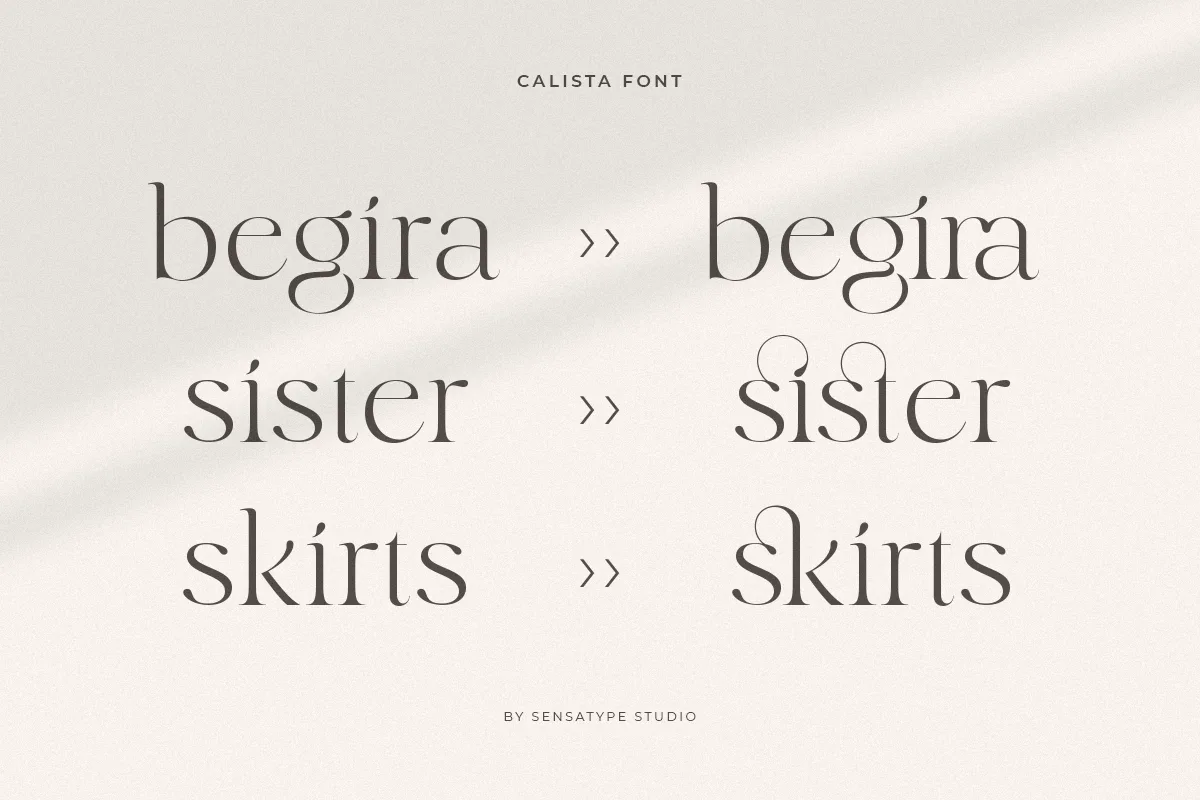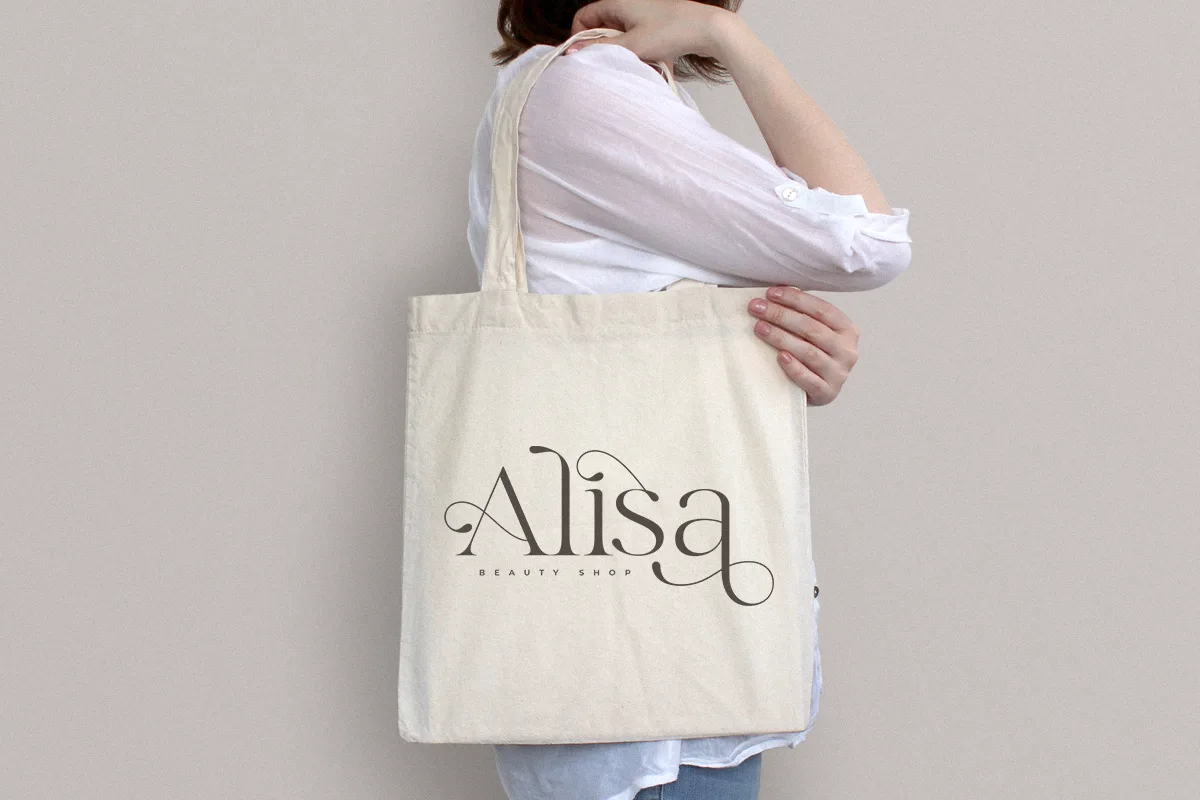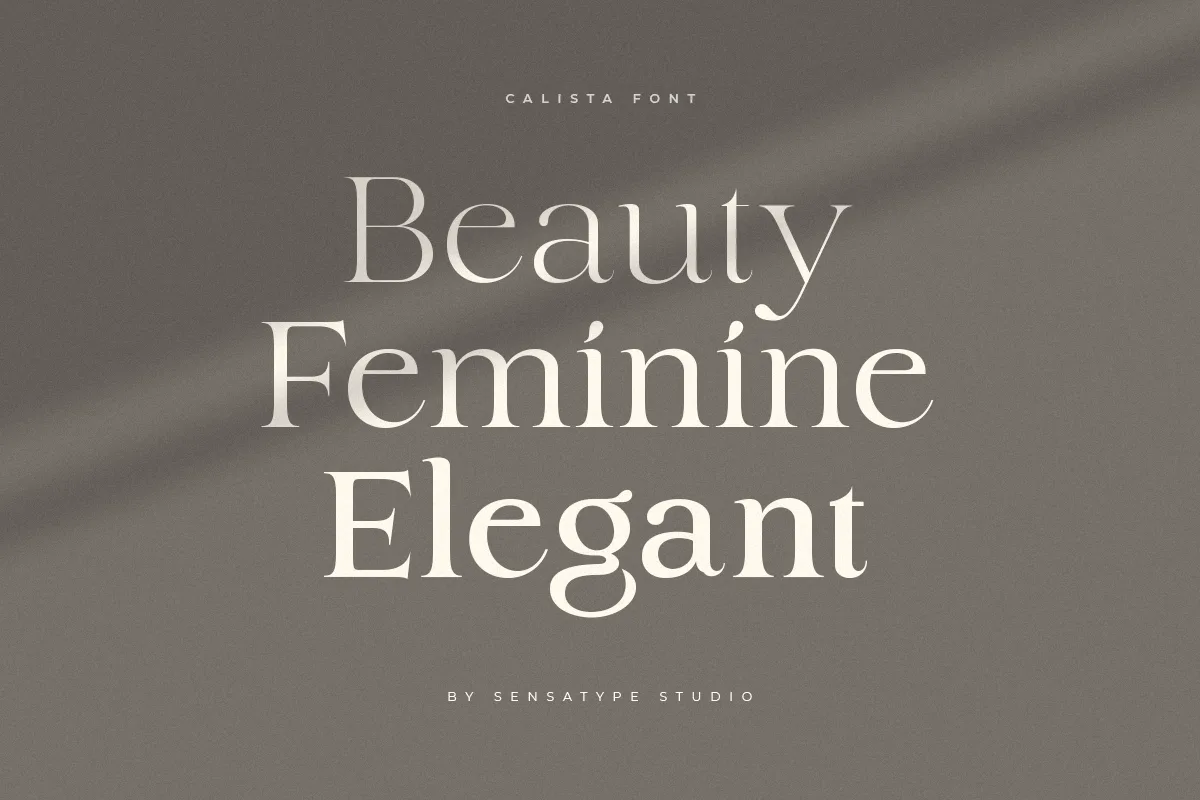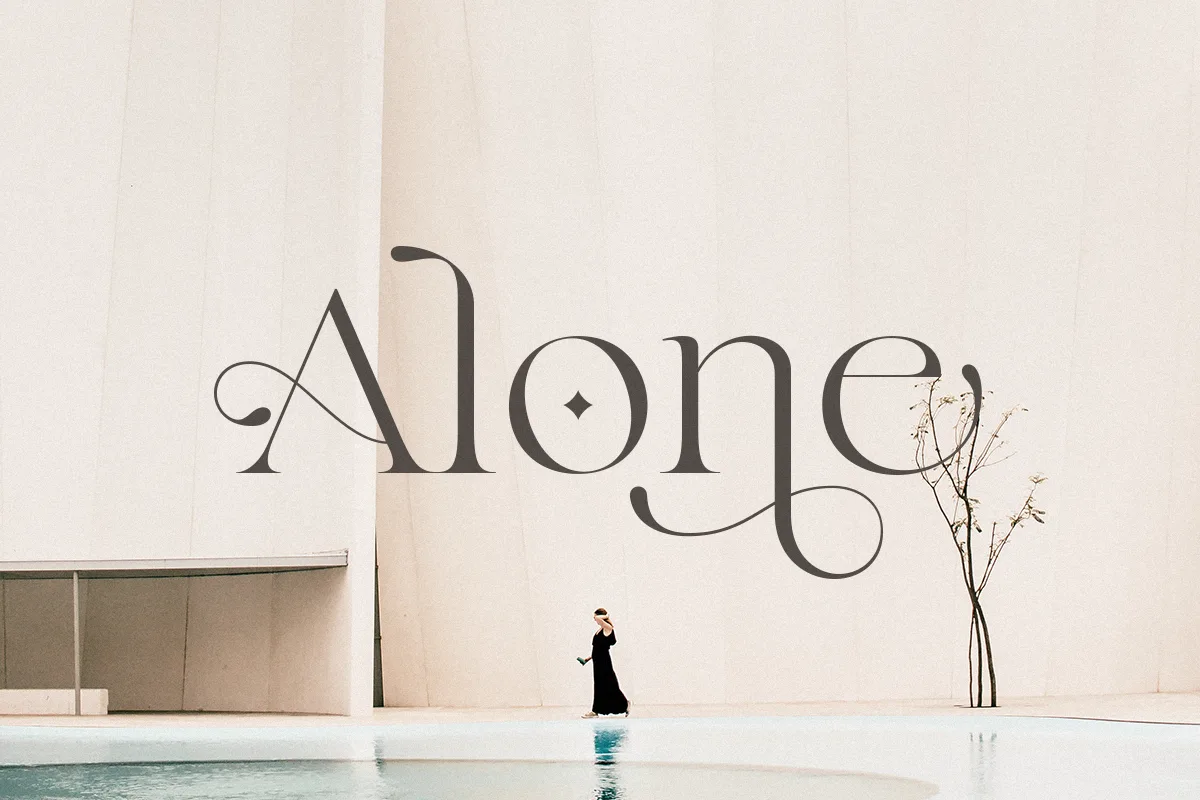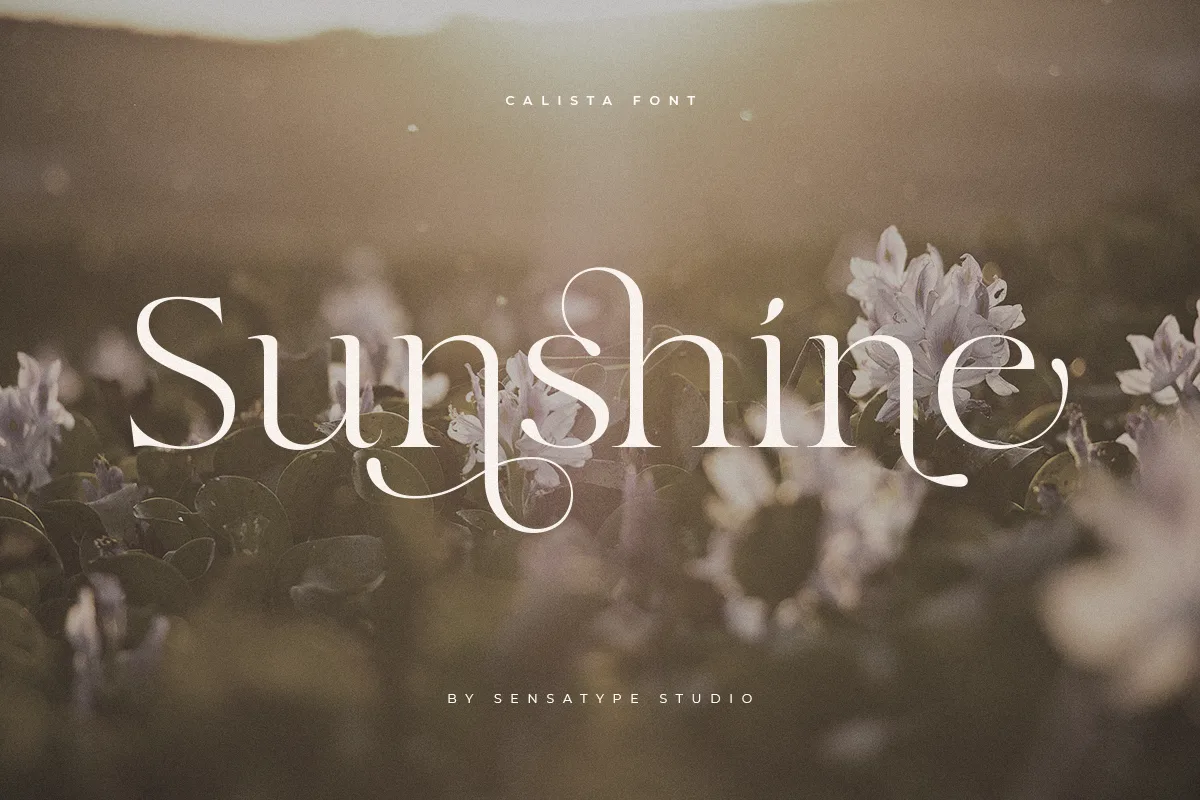
Calista is a new classy elegant serif typeface. A serif that we created special for elegant branding needs, with extra ligature and alternates in unique shapes will be ready to add value of your brand. It so nice to leverage designers or product owners who need solutions to make their design look more classy and modern.